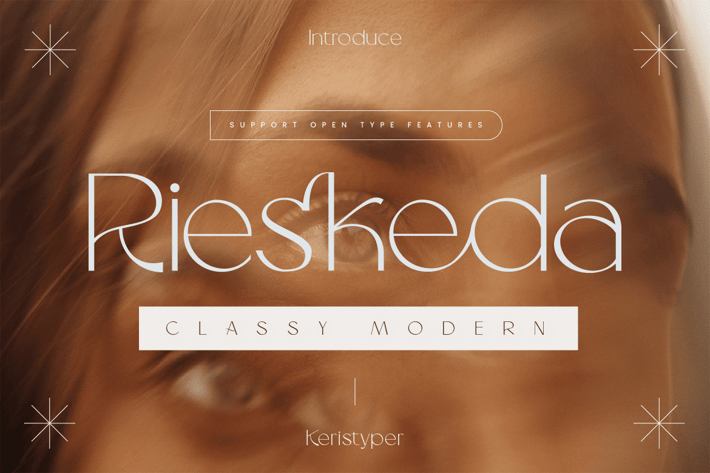
Rieskeda Font
Rieskeda is a luxurious and elegant font influent by both classically elegant and modern. This font is good for logo design, Social media, Movie Titles, Books Titles, short text even long text letters, and good for your secondary text font with script, sans, or serif.
Standard Uppercase & Lowercase
Multilingual : ä ö ü Ä Ö Ü ß ¿ ¡
Alternate & Ligature